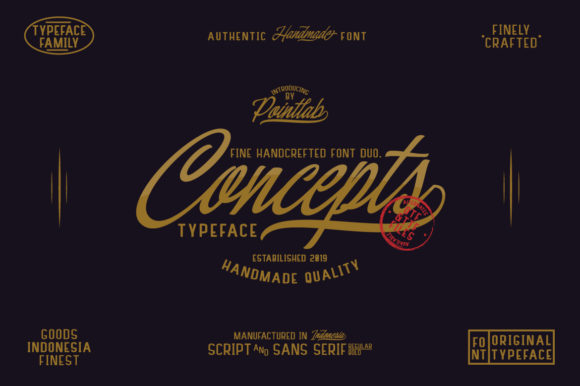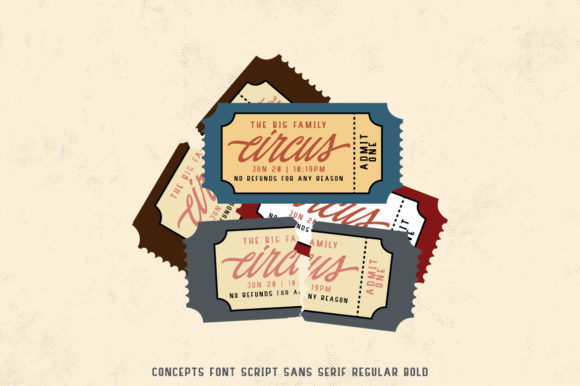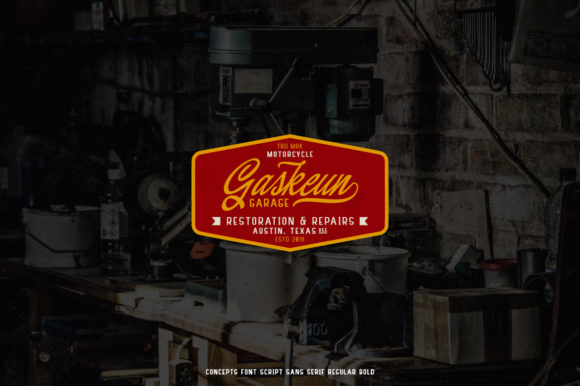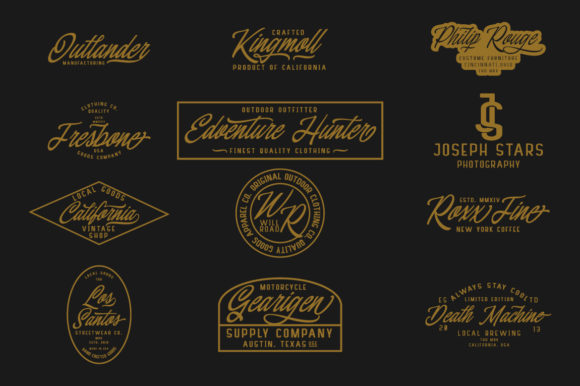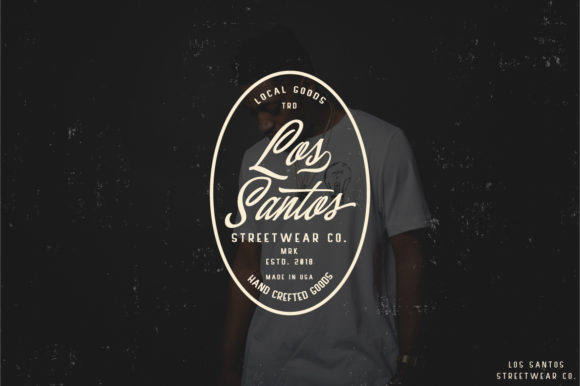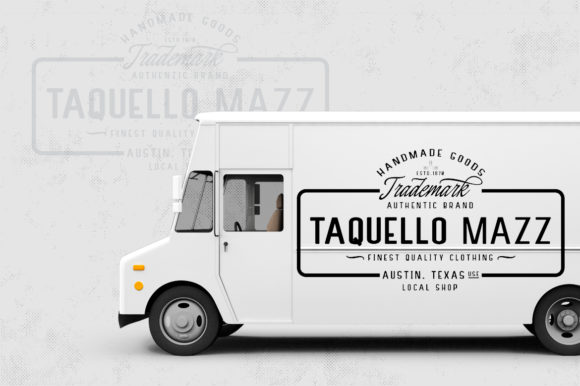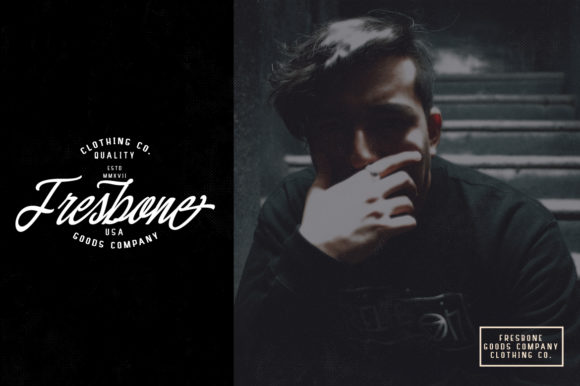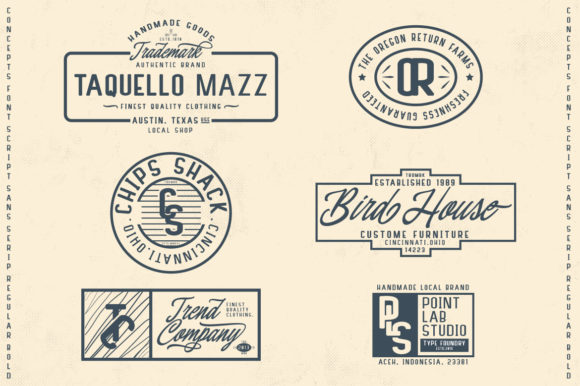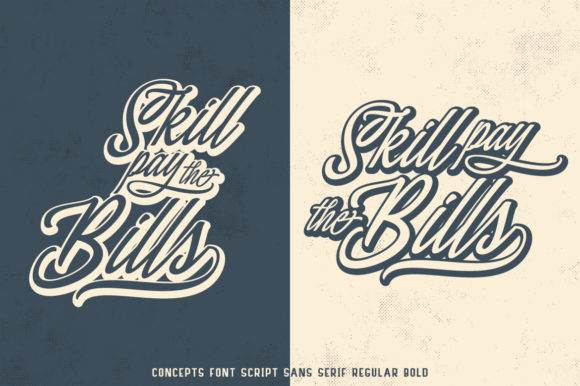
Concepts Font
About Concepts Font
Concepts is a handmade script, full of life. It’s the perfect typeface to add a personal spark to any design project!